Dream Notes - Handwritten Font
Description
"Dream Notes" is a charming and whimsical handwritten font that adds a touch of sweetness to any project. Its light and airy strokes make it perfect for greeting cards, children's designs, quotes, and social media graphics needing a friendly feel. The font includes uppercase and lowercase letters, numbers, and punctuation.
Who it's suitable forBloggers, social media enthusiasts, designers working on personal or light-hearted projects.
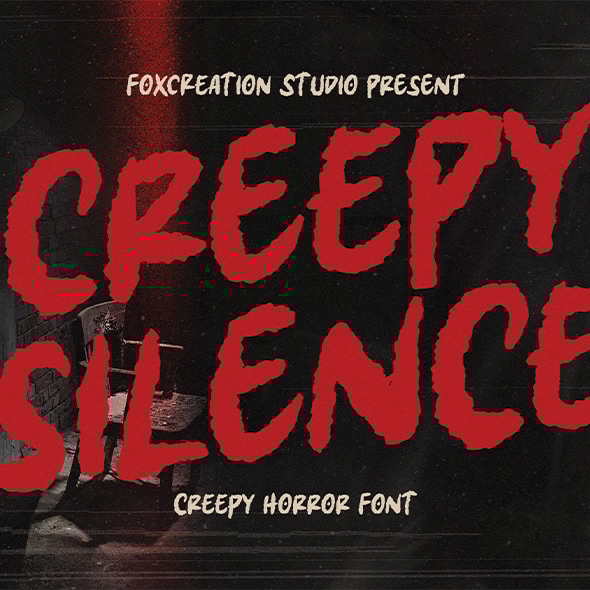
Description
"Creepy Silence" is a chilling and spooky handwritten font designed to create a sense of horror and suspense. Its scratchy and uneven lines are ideal for Halloween-themed designs, movie posters, game titles, and any project aiming for a dark and eerie aesthetic. This font includes uppercase and lowercase letters, numbers, and basic punctuation.
Who it's suitable forDesigners working on horror or thriller projects, event organizers for spooky occasions.
Description
"Ballimo Peachy" is a cute and friendly handwritten font with rounded edges and a playful vibe. Its charming letterforms make it suitable for branding, packaging, social media content, and designs targeting a younger audience or those seeking a light-hearted feel. The font includes uppercase and lowercase letters, numbers, and punctuation.
Who it's suitable forSmall business owners, social media marketers, designers working on children's products or playful brands.
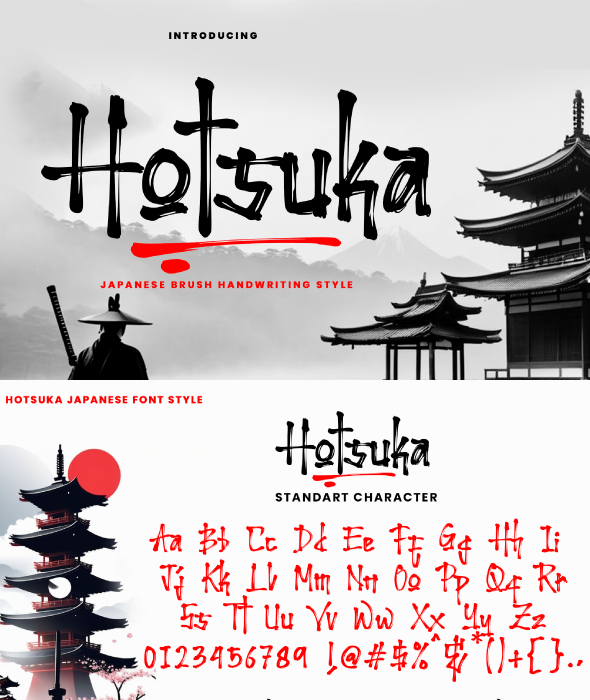
Description
"Hotsuka" is a dynamic and expressive Japanese-style brush font that adds an artistic and powerful touch to your designs. Its bold strokes and unique character make it ideal for posters, logos, packaging, and projects seeking an Asian-inspired aesthetic. The font includes uppercase and lowercase letters, numbers, and punctuation.
Who it's suitable forGraphic designers working on projects with a Japanese or Eastern theme, brands looking for a strong and artistic font.
Description
"Jhino" is a bold and rugged all-caps brush font perfect for making a strong statement. Its textured strokes and energetic feel are well-suited for headlines, posters, t-shirt designs, and branding that needs an edgy and impactful look. This font includes uppercase letters, numbers, and punctuation.
Who it's suitable forDesigners working on streetwear brands, music posters, or any project needing a bold and raw aesthetic.
Description
"Rinaska Signature" offers an elegant and flowing handwritten script perfect for adding a touch of sophistication to your designs. Its stylish curves and clean lines make it ideal for logos, branding, wedding invitations, watermarks, and any project seeking a personal and refined touch. This font comes with uppercase and lowercase letters, numerals, punctuation, and stylistic alternates and ligatures for added flair.
Who it's suitable forBranding designers, wedding planners, photographers, and small business owners looking for a stylish signature font.
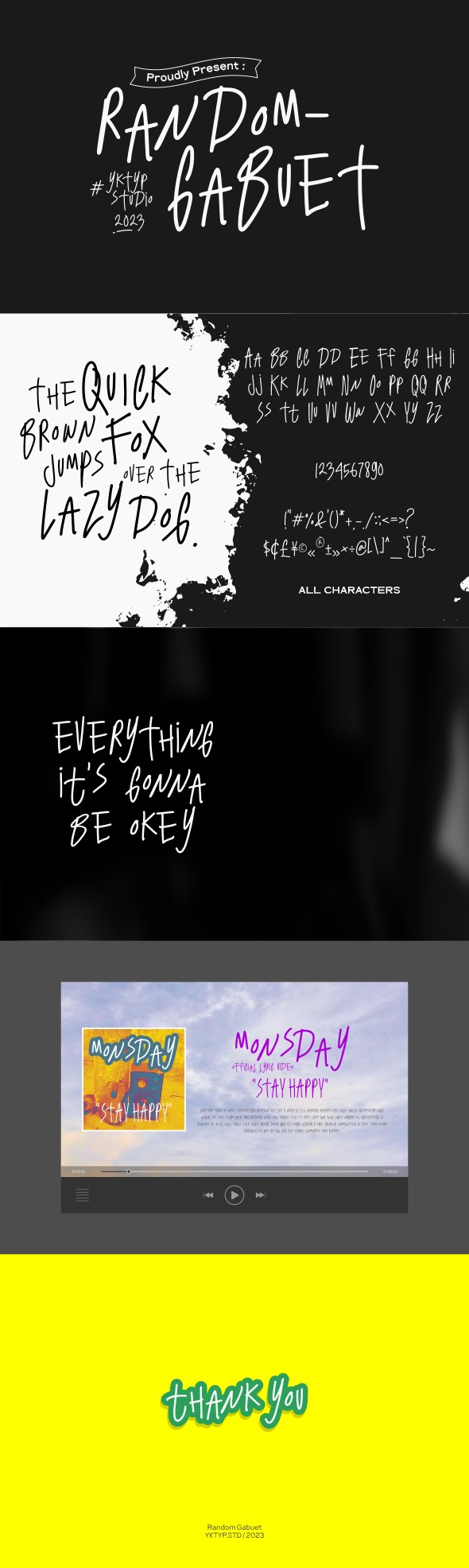
Description
"Random Gabuet" is a quirky and playful handwritten font with a unique and slightly irregular style. Its fun and whimsical characters are perfect for children's books, comics, posters, and any design that needs a touch of lightheartedness and originality. The font includes uppercase and lowercase letters, numbers, and punctuation.
Who it's suitable forIllustrators, designers working on children's content, and anyone seeking a font with a distinct and playful personality.
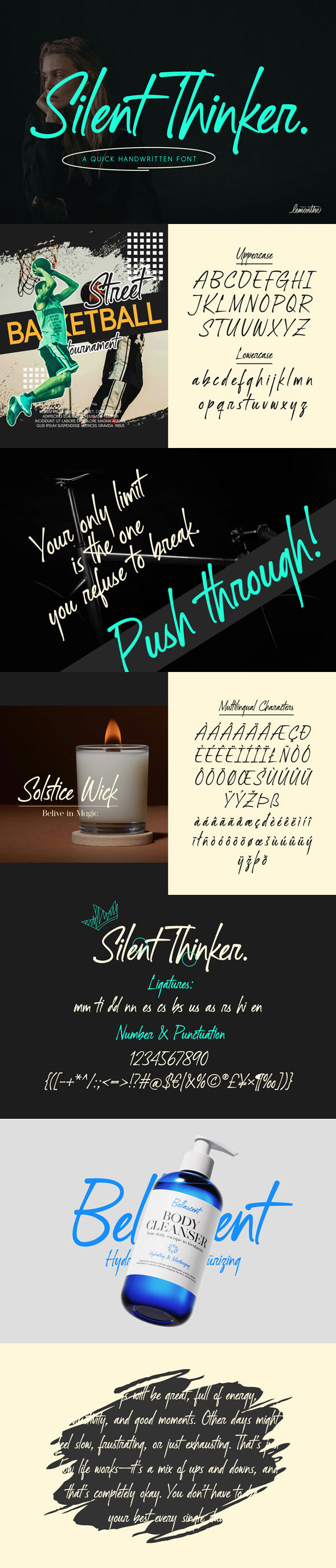
Description
"Silent Thinker" is a unique and slightly quirky handwritten font with a distinct personality. Its uneven baseline and playful letterforms give it a charming and approachable feel, making it suitable for book covers, posters, social media graphics, and designs that need a touch of individuality. The font includes uppercase and lowercase letters, numbers, punctuation, and supports multiple languages.
Who it's suitable forAuthors, illustrators, social media artists, and designers seeking a font with a unique and friendly character.